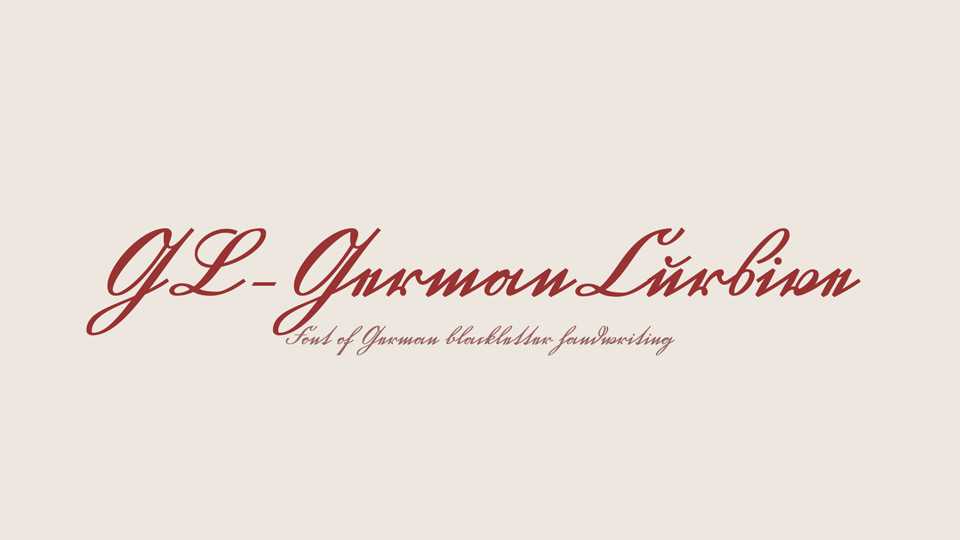
Download GL-GermanCursive font, a typeface that pays homage to the rich tradition of German blackletter handwriting. This typeface exudes the classic elegance and historical charm associated with Gothic scripts, reminiscent of the meticulous handcrafted manuscripts of medieval Germany.